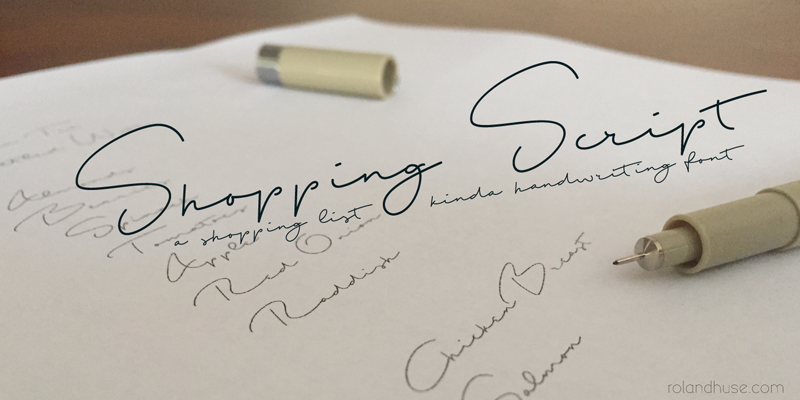
Font name: | Shopping Script |
SHOPPING SCRIPT is a cursive signature style handwritten script. This is the demo version and it's free for personal use only. For full version and commercial use please visit store.rolandhuse.com or email me contact@rolandhuse.com You MAY NOT sell this font or claim them as your own. You MAY NOT edit or rename this font. You MAY NOT redistribute this font. Thank you & I hope you like this font, Roland http://www.rolandhuse.com https://www.facebook.com/rolandhusedesign |